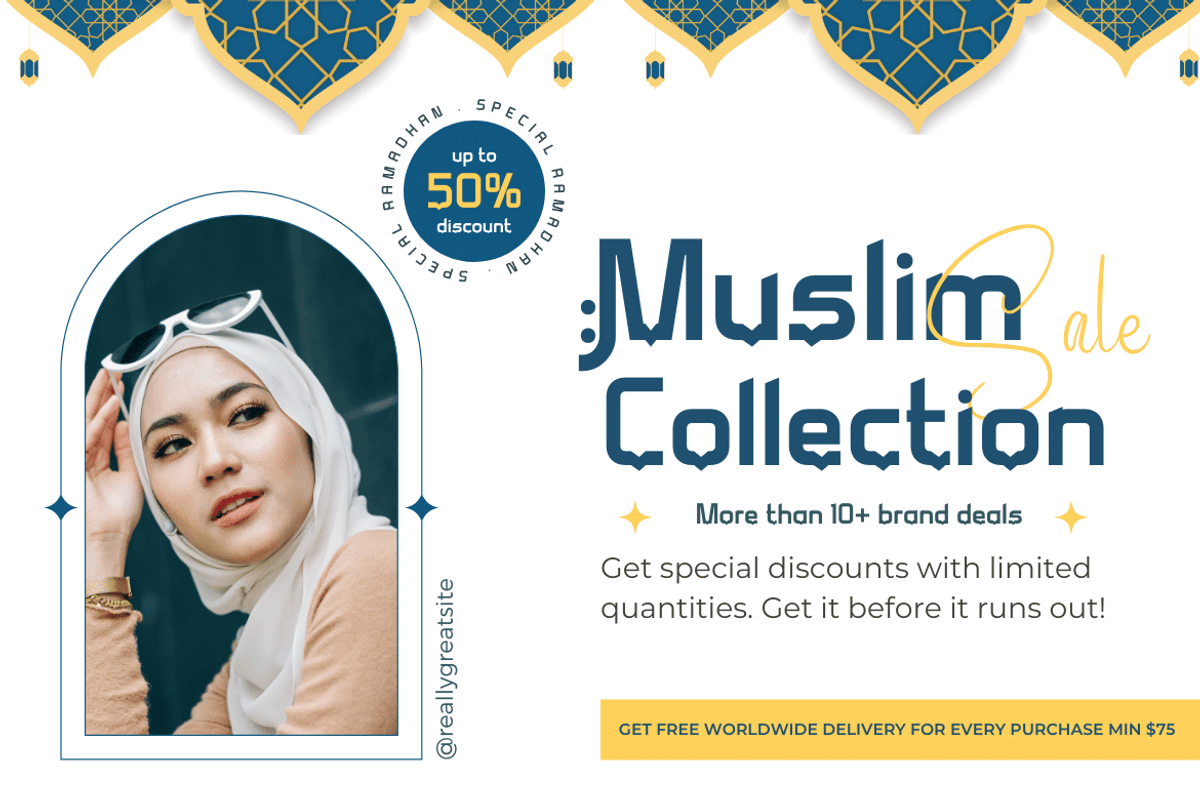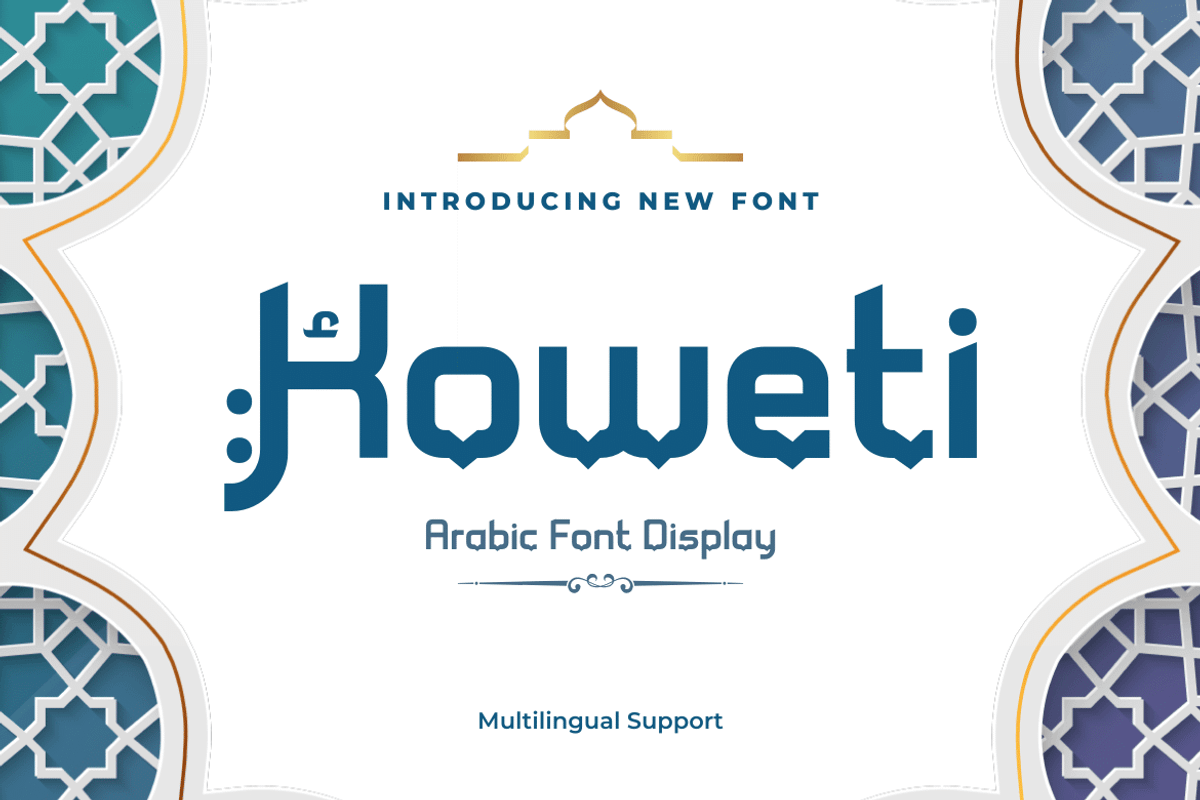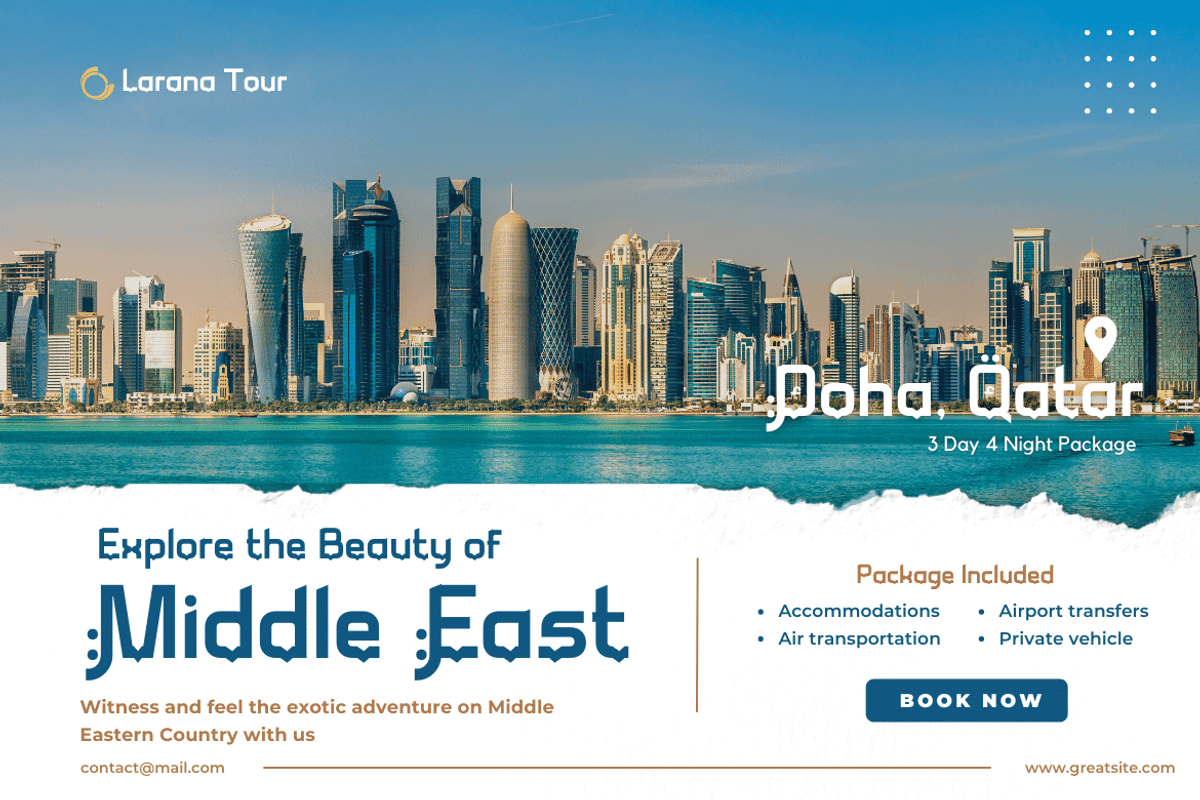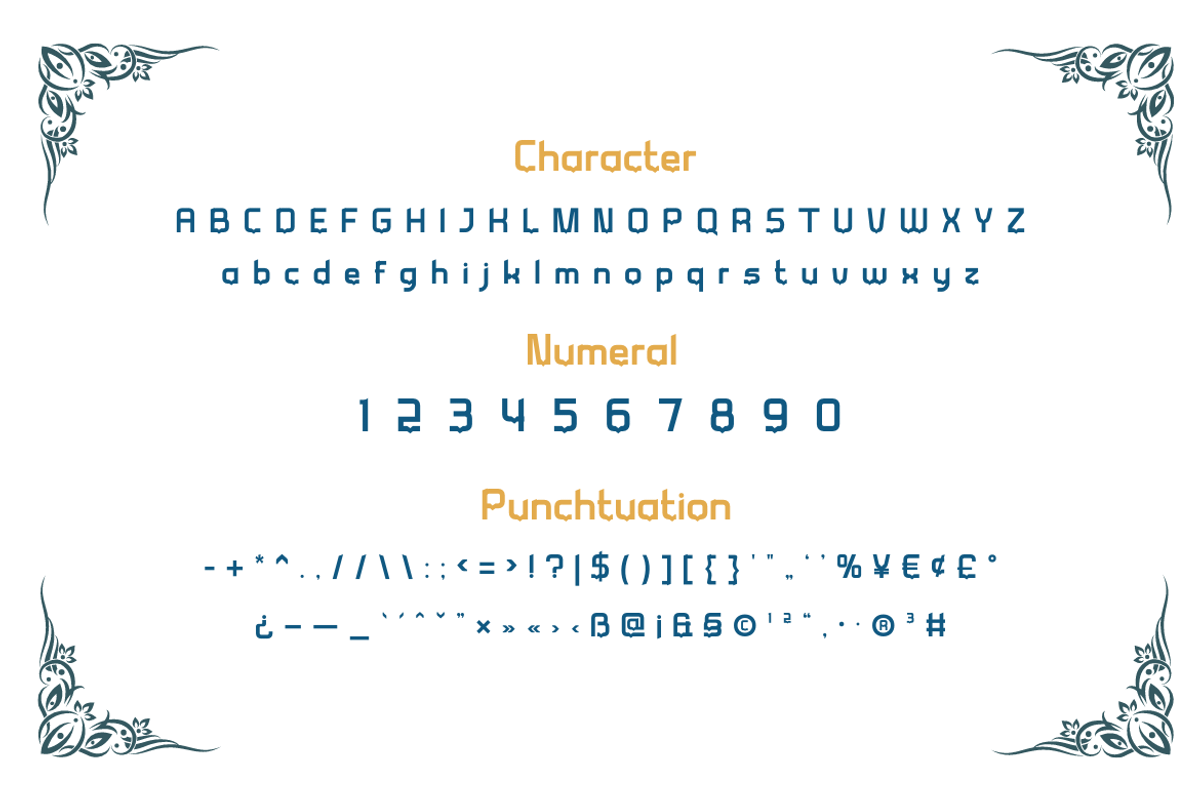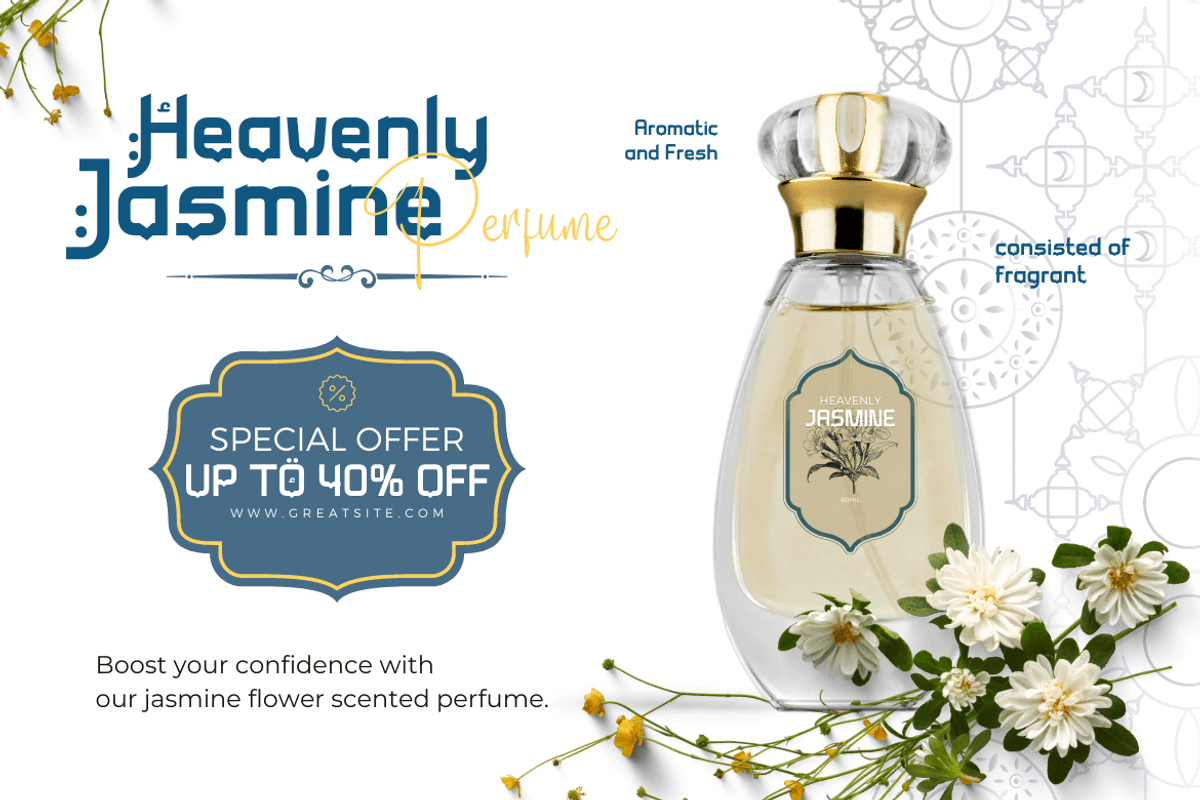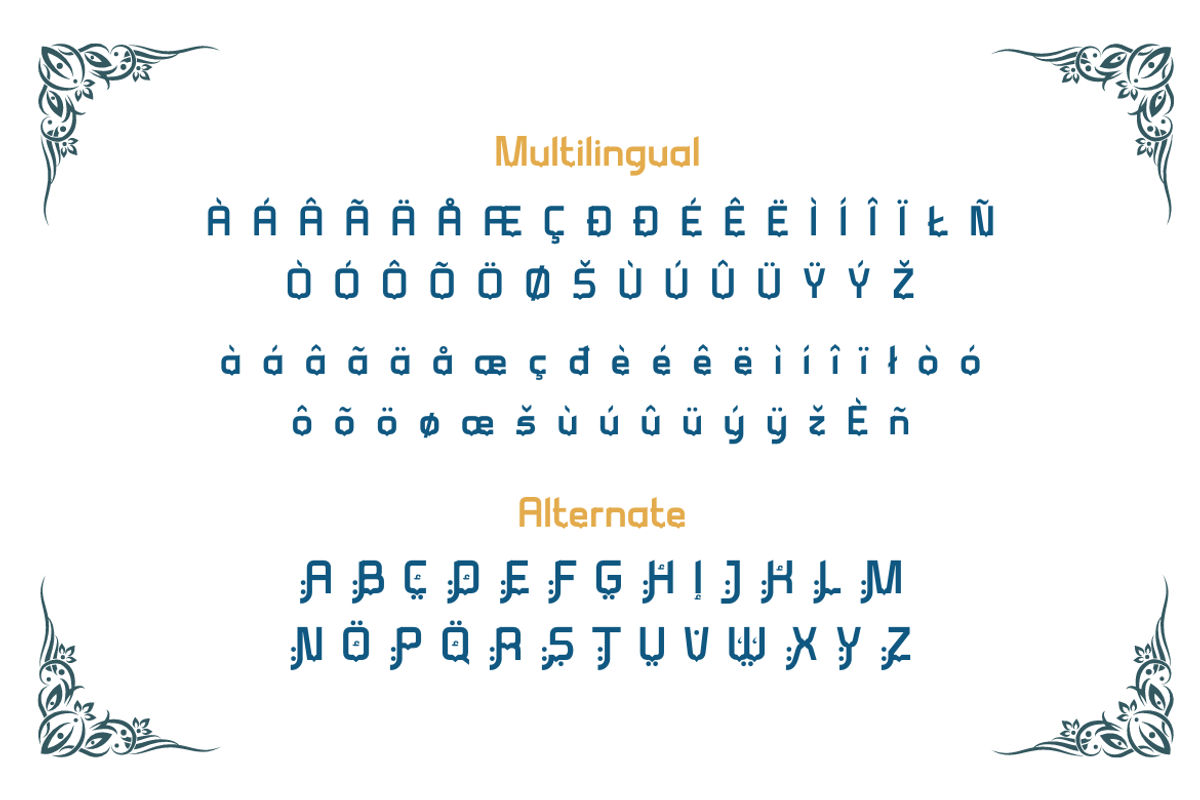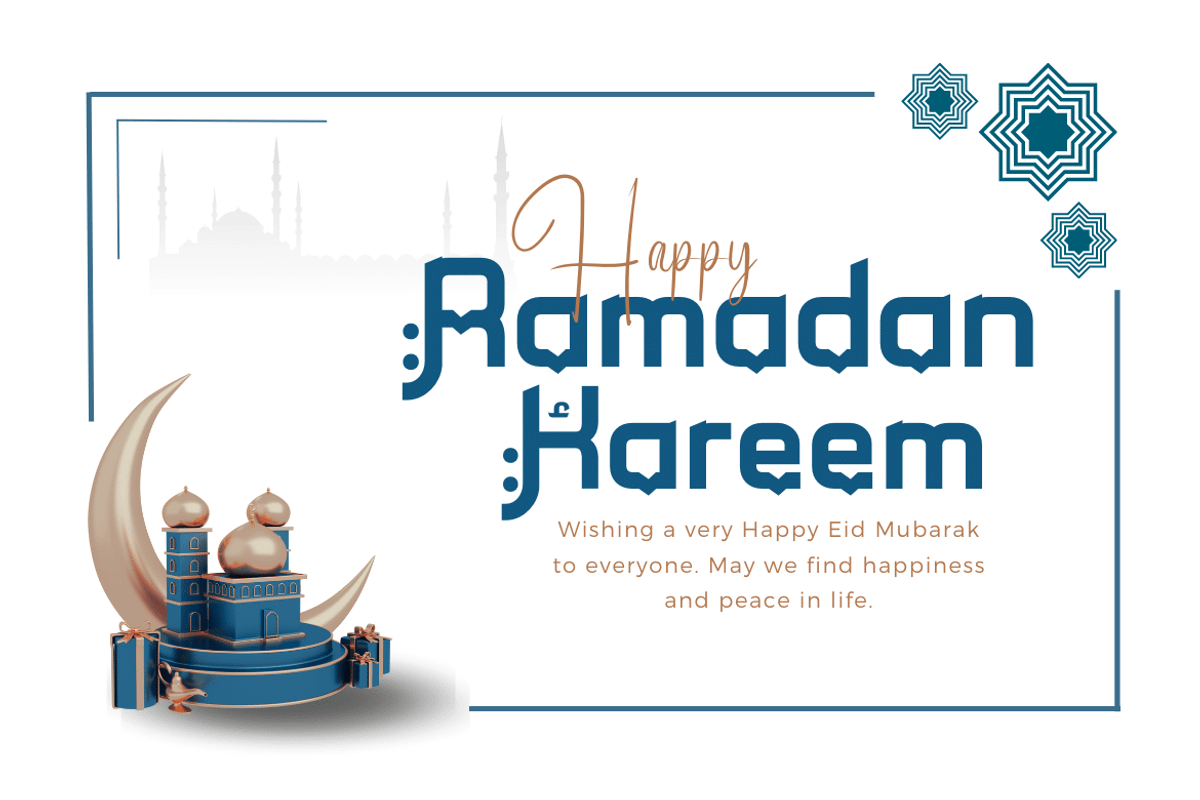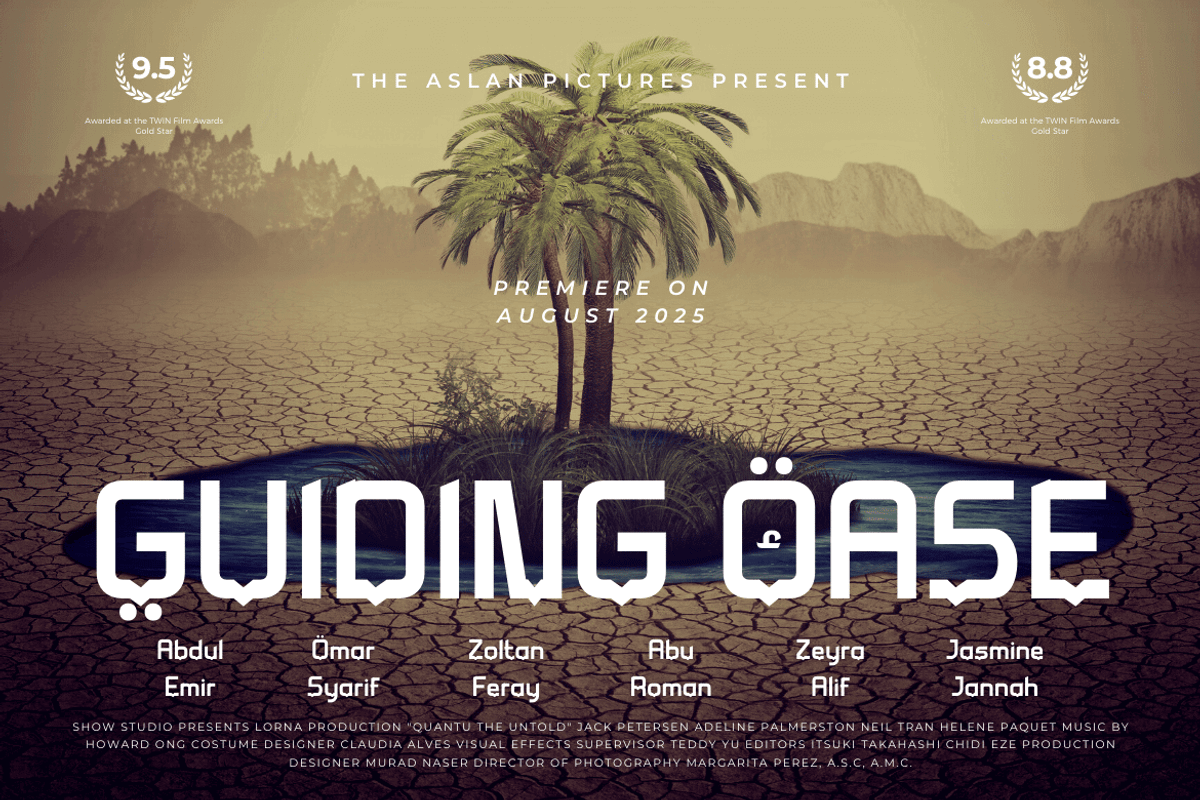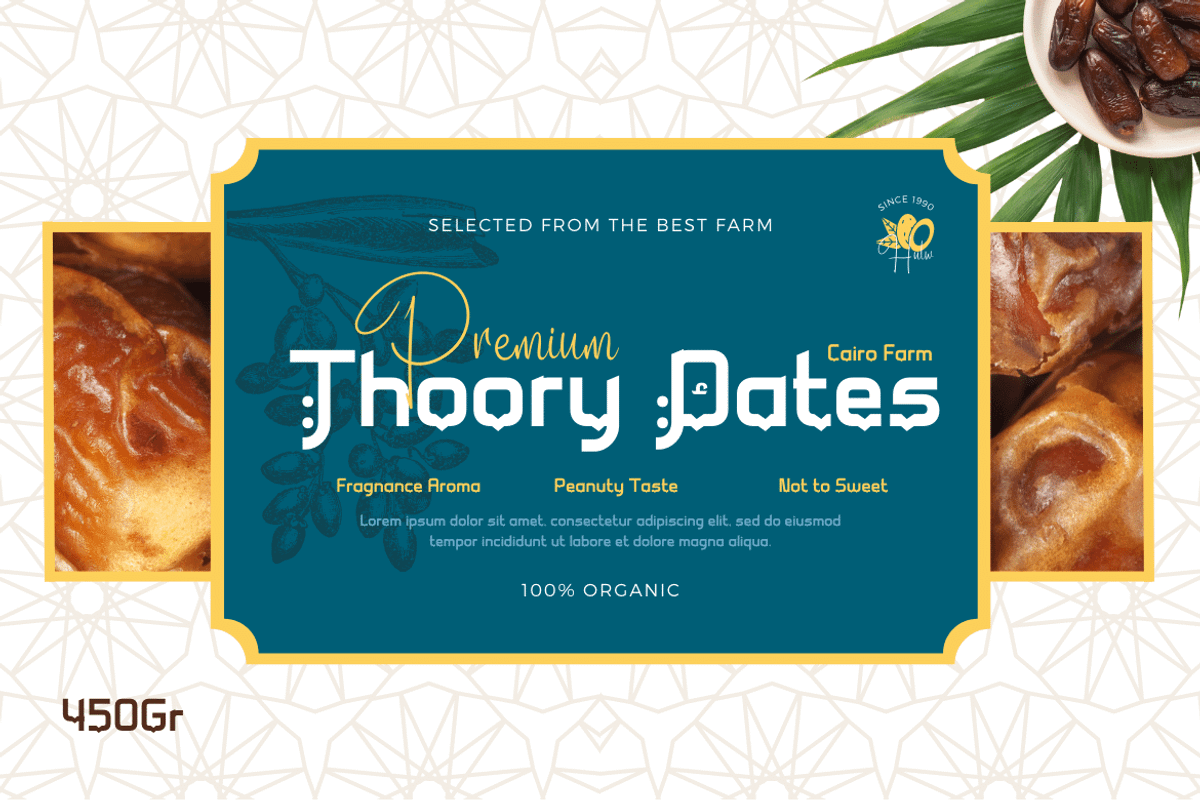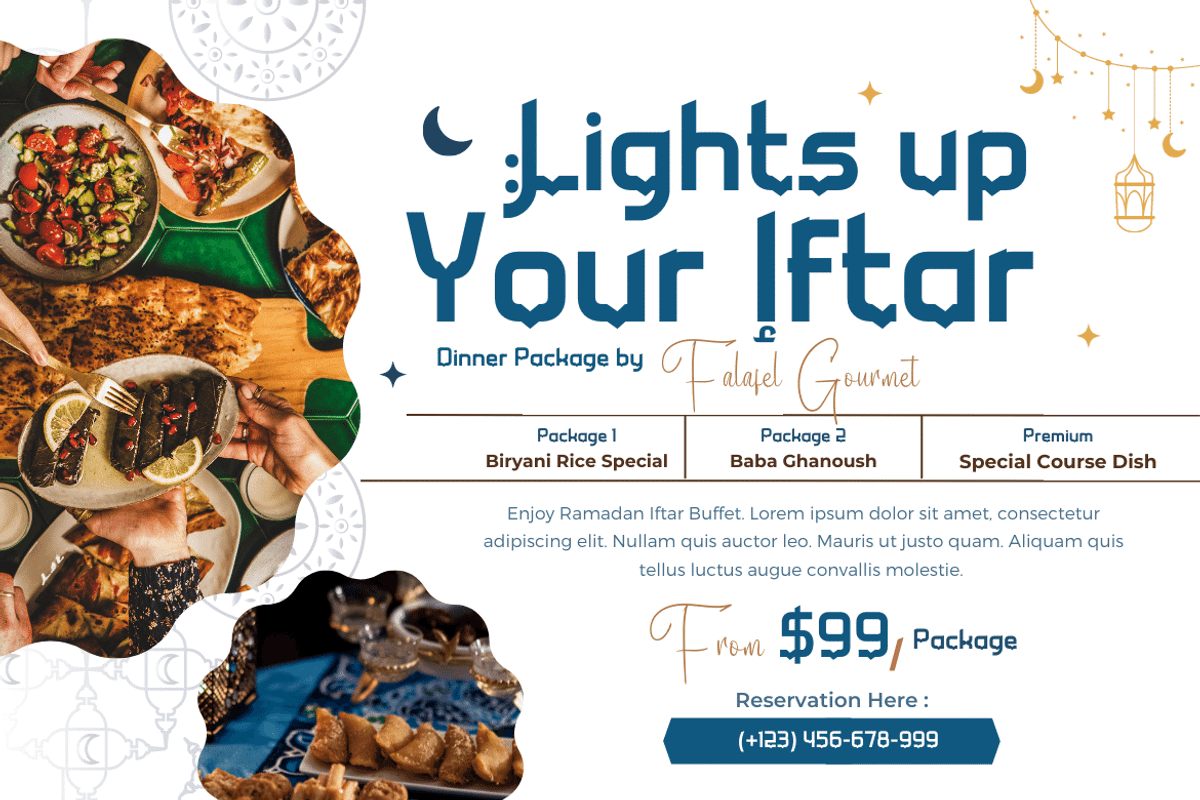
Koweti
Introducing Koweti, a premium Arabic style font. Specially designed to bring luxury and prestige to your designs. This unique letterform gives you the flexibility to create the look and feel you need for any occasion. Using this font is the best choice to bring harmony to your designs.